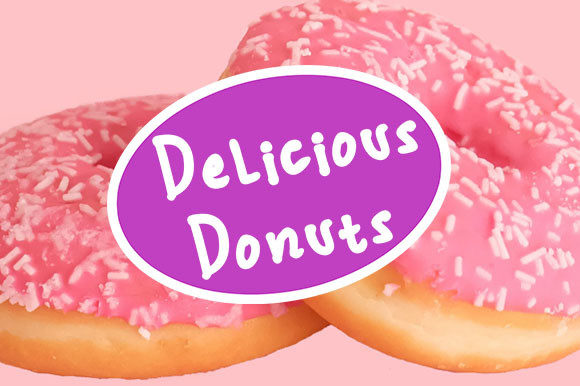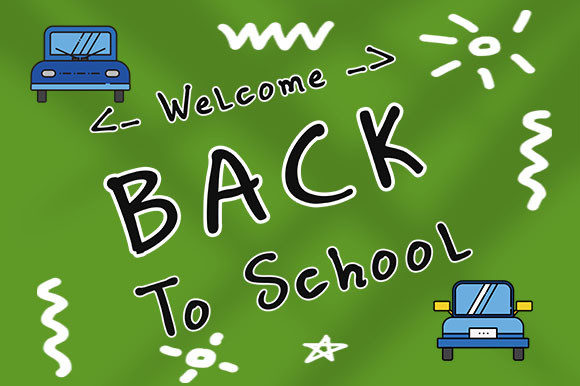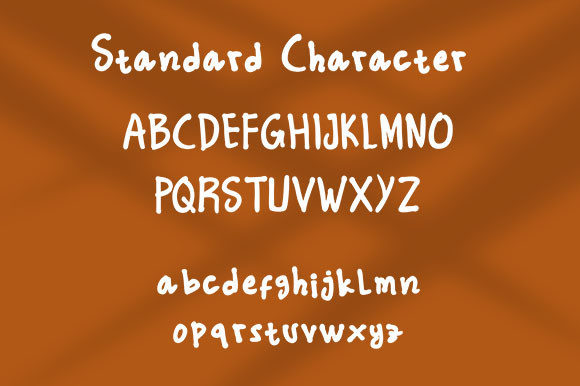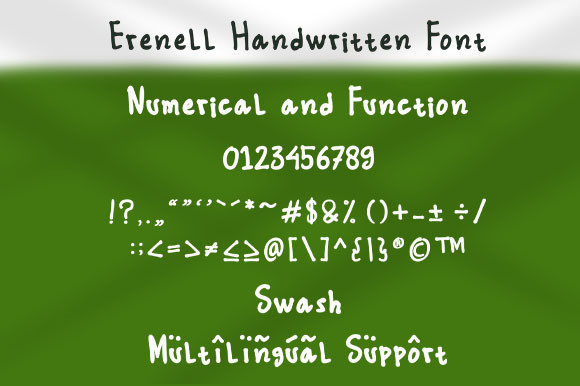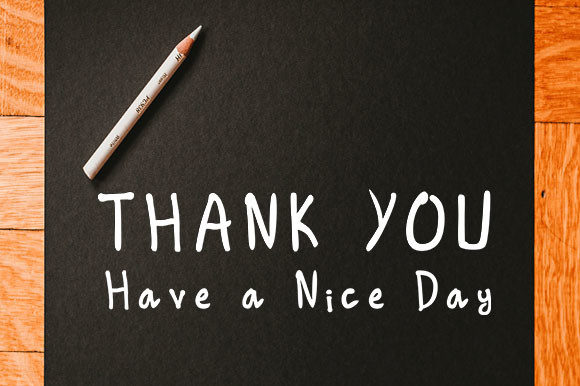
Erenell Font: The Perfect Handwritten Font for Chalkboard Quotes and Teaching Materials
Are you a designer or crafter looking for a font that can add a personal and realistic touch to your designs? Look no further than Erenell Font! This beautiful handwritten font is perfect for creating chalkboard quotes, teaching materials, and other designs that require a authentic look and feel.
What is Erenell Font?
Erenell Font is a carefully crafted handwritten font that is designed to mimic the look and feel of chalkboard writing. Its unique and authentic style makes it perfect for adding a personal touch to your designs. Whether you’re creating a chalkboard quote, a teaching material, or a craft project, Erenell Font is the perfect choice.
Features of Erenell Font
- Authentic Look and Feel: Erenell Font has a unique and authentic look and feel that is reminiscent of chalkboard writing. Its handwritten style makes it perfect for creating designs that require a personal touch.
- Handwritten Style: Erenell Font is a handwritten font that is designed to look like it was written on a chalkboard. Its flowing lines and imperfections make it look like a genuine handwritten font.
- Versatile: Erenell Font is a versatile font that can be used for a wide range of designs, including chalkboard quotes, teaching materials, craft projects, and more.
Uses of Erenell Font
Erenell Font is a versatile font that can be used for a wide range of designs. Here are some of the most popular uses of Erenell Font:
- Chalkboard Quotes: Erenell Font is perfect for creating chalkboard quotes that are both inspirational and visually appealing.
- Teaching Materials: Erenell Font is a great choice for teachers who want to create teaching materials that are both fun and engaging.
- Craft Projects: Erenell Font is perfect for crafters who want to add a personal touch to their projects. It can be used for creating signs, banners, and other craft projects.
- Social Media Graphics: Erenell Font can be used to create social media graphics that are both visually appealing and engaging.
Benefits of Using Erenell Font
There are many benefits to using Erenell Font for your designs. Here are some of the most significant benefits:
- Unique and Authentic Style: Erenell Font has a unique and authentic style that will set your designs apart from the rest.
Erenell Font is a beautiful handwritten font that is perfect for creating chalkboard quotes, teaching materials, and other designs that require a authentic look and feel. Its unique and authentic style makes it a great choice for designers and crafters who want to add a personal touch to their designs. With its ease of use, versatility, and cost-effectiveness, Erenell Font is a must-have font for any designer or crafter.